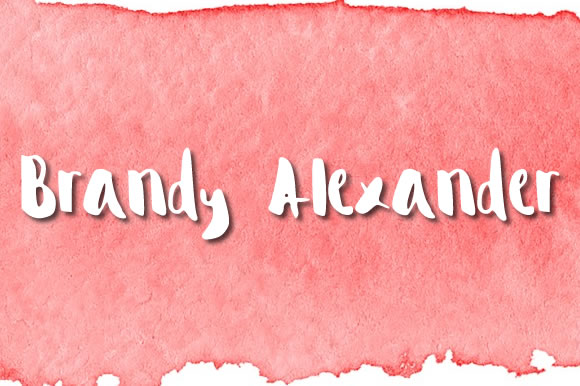
Introducing Brandy Alexander, the playful and personal script font that will add a touch of whimsy to your designs.
Crafted by the talented Elizabeth Jane, this handwritten brush font is designed to evoke the carefree spirit of a handwritten note. Its flowing curves and organic shapes give it a charming, human touch that will make your projects stand out.
Whether you're creating invitations, branding materials, or social media graphics, Brandy Alexander is the perfect choice for adding a touch of personality and style. Its versatile nature makes it suitable for a wide range of projects, from elegant weddings to playful children's books.
With Brandy Alexander, you can:
* Create enchanting invitations that capture the joy and excitement of your special day.
* Design eye-catching branding materials that reflect the unique character of your business.
* Craft social media graphics that pop with personality and engage your followers.
* Add a touch of whimsy to your personal projects, from handwritten letters to creative scrapbook pages.